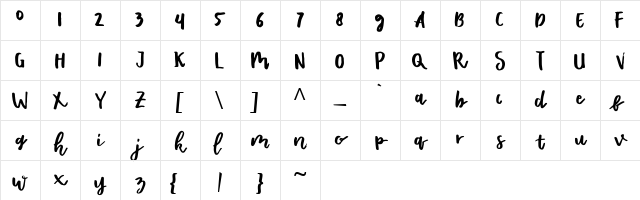
Shella Rough Regular Free Font
Shella Rough Regular
Foundry: Mas Anis
Designer: Mas Anis
Design Context for Shella Rough
Shella Rough embraces imperfection - its rough, textured character adds raw authenticity to designs that want to feel lived-in and unconventional.
Pro Tip: Use Shella Rough at larger sizes where the texture and irregularity of each letterform can be clearly seen - it loses its character at small sizes.